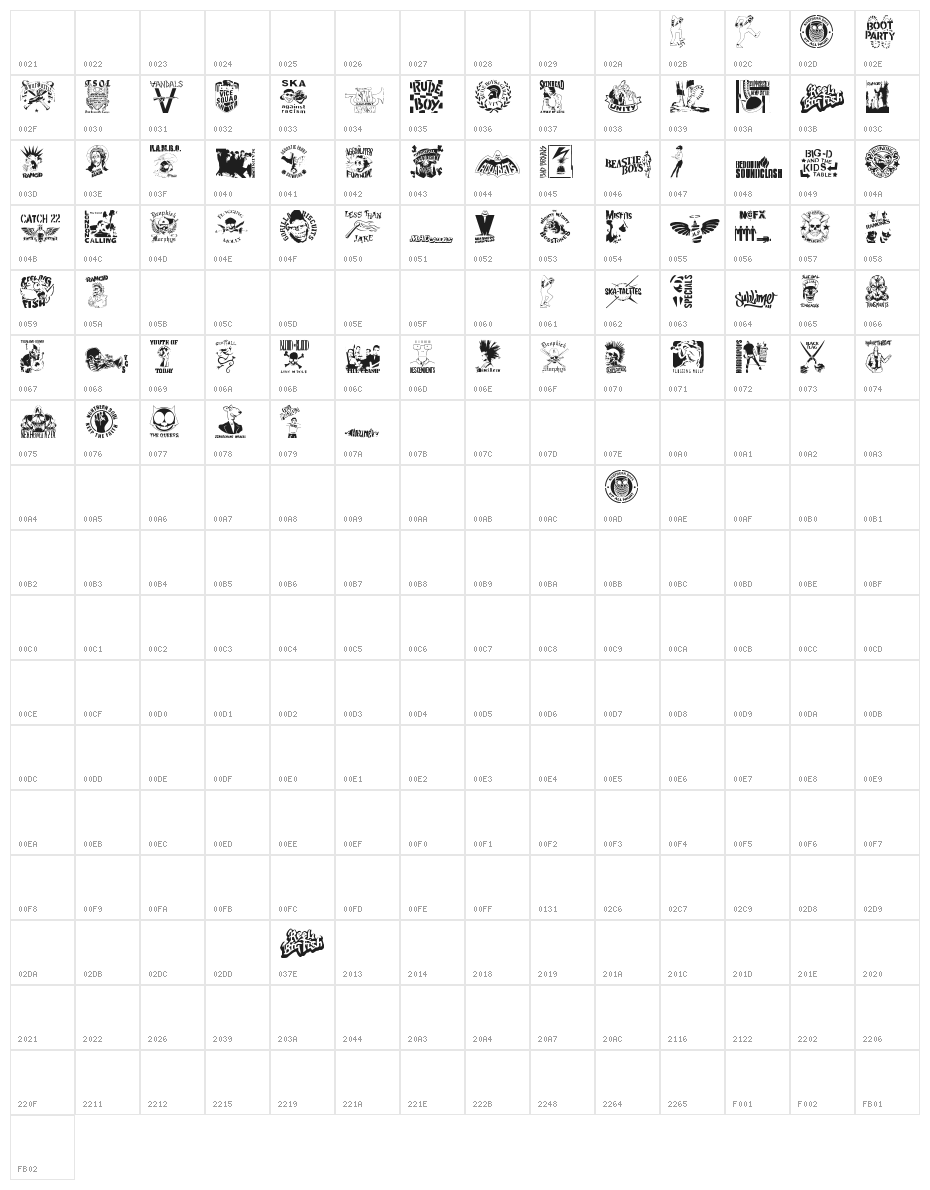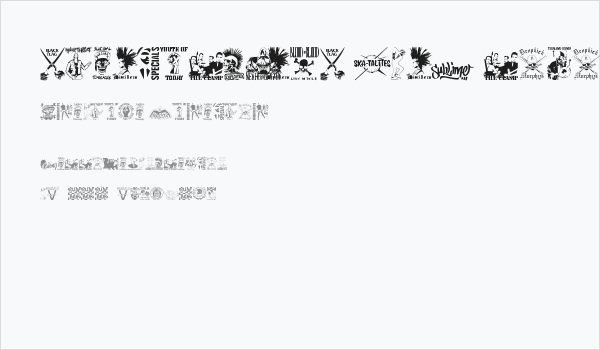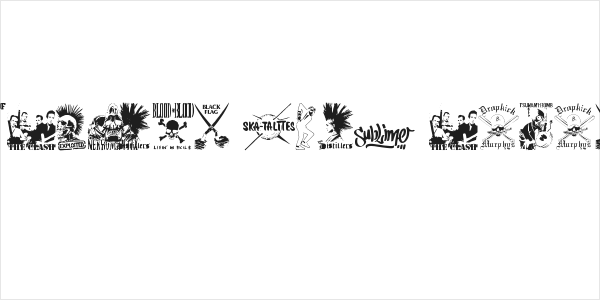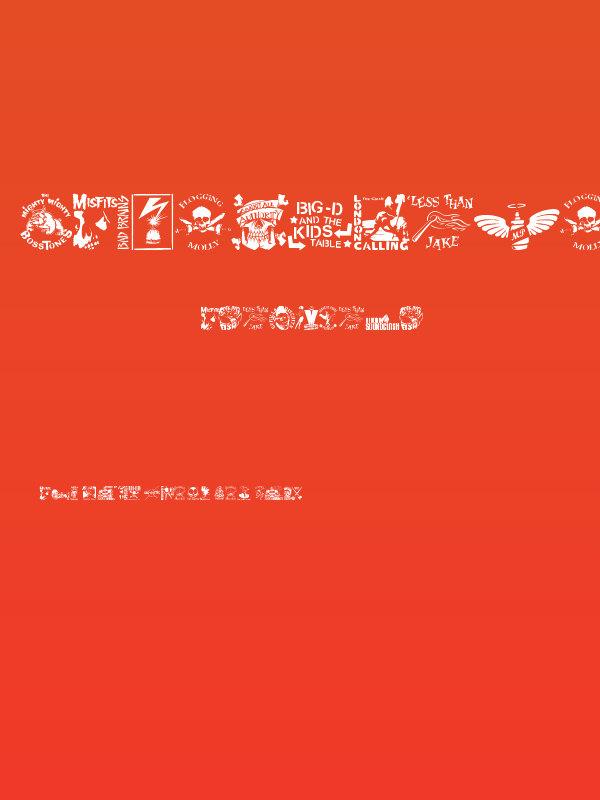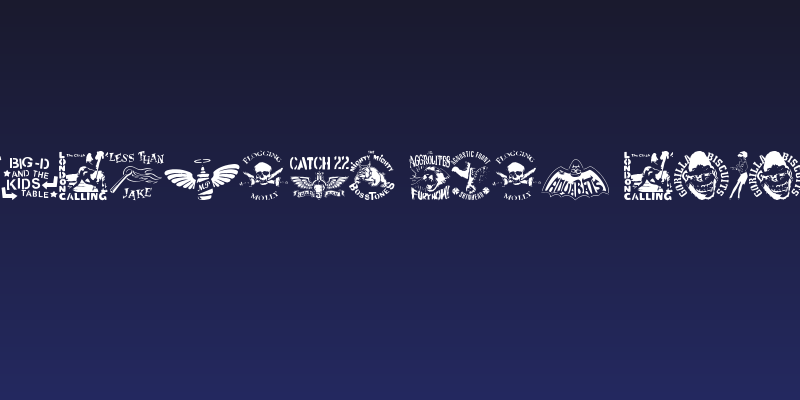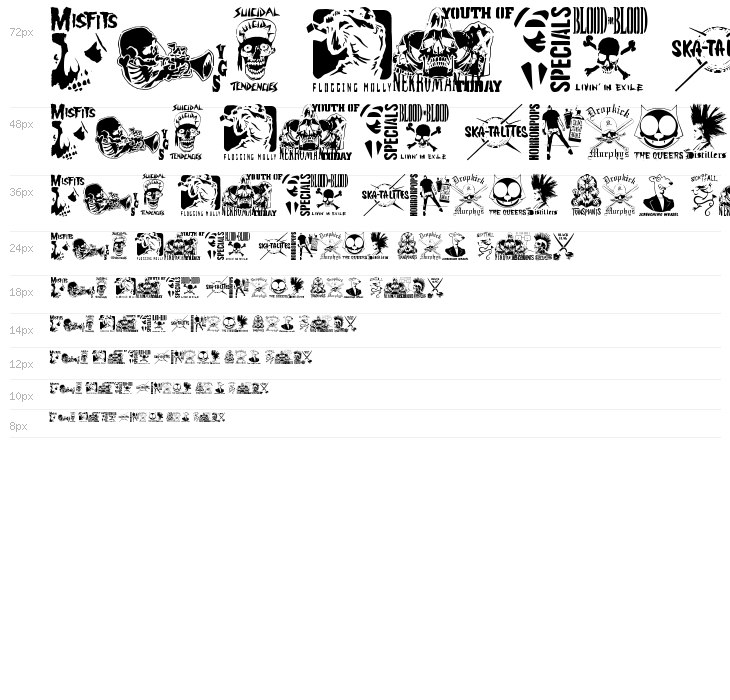
stencilpunks band logos 0001 Font
stencilpunks band logos 0001 Description
A highly decorative and eclectic collection of bold, stencil-inspired letterforms with heavy use of graphic elements, irregular shapes, and distressed textures. The characters vary widely in style, with some featuring sharp edges, blocky forms, and cut-out effects, while others are more rounded or hand-drawn. The overall appearance is energetic, rebellious, and visually impactful, often integrating imagery directly into the letterforms.
| Overall Style | Decorative, Rebellious, Urban, Punk |
| Use Case | Logos, Headlines, Posters, Merchandise |
| Proposed Projects | Band logos, posters, album covers, street art, event flyers, apparel graphics, zines. |